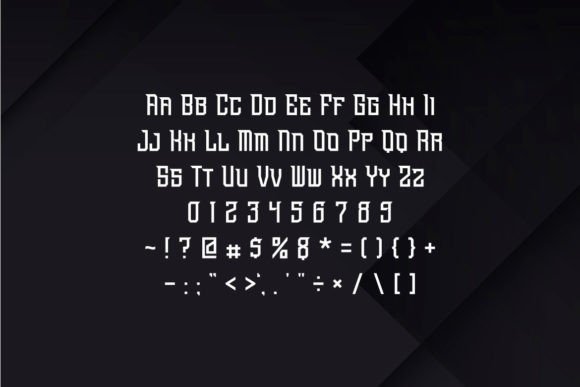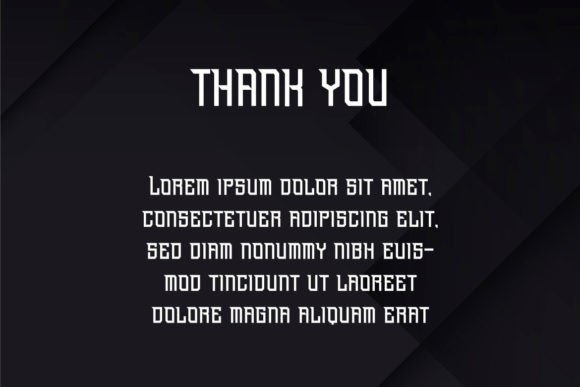
Introduction to Heroshima Font
As designers, we’ve all been there – staring at a blank canvas, searching for the perfect font to bring our creative project to life. It’s that moment of inspiration when everything falls into place, and the design starts to take shape. For many of us, that moment comes when we discover the perfect font – one that’s modern, clean, and eye-catching. Welcome to Heroshima Font, the ultimate design resource for designers looking to elevate their work.
With its sleek and sophisticated design, Heroshima Font is ideal for a wide range of applications, from Esports posters and cards to book titles and headlines. Whether you’re working on a free download project or a high-end commercial campaign, Heroshima Font is the perfect addition to your fonts library. Its transparent background and high-quality design make it a valuable asset for any designer looking to create stunning visuals.
Key Features of Heroshima Font
- Unique, high-quality design: The Heroshima Font offers a distinctive and elegant look that can elevate any creative project.
- Transparent background: The font’s transparent background allows for seamless integration with various design elements and backgrounds.
- High-resolution design: The font is designed with high resolution, ensuring crisp and clear text display even at larger sizes.
- Perfect for creative projects: The Heroshima Font is ideal for various design projects, including logos, typography, and graphics, due to its unique and stylish design.
- High-quality resolution: The font is available in a high-quality resolution of 300 DPI, making it suitable for print and digital designs.
Honest Review: Heroshima Font
One of the standout features of the Heroshima Font is its unique style, which can add a touch of elegance to any design. The font comes with a transparent background, making it easy to use in various design scenarios.
Here are some of the things that work well for the Heroshima Font:
- Unique style that can add a touch of elegance to designs
- High quality font that looks great on various devices
- Transparent background for easy use in design projects
- May not be suitable for designs that require a more modern or minimalist look
- Limited font weights and styles available
- May require some tweaking to get the desired look
Overall, I think the Heroshima Font is a great addition to any designer’s toolkit. While it may have some limitations, its unique style and high quality make it a valuable resource for creative projects. ✨
Tips for Getting the Most Out of Heroshima Font
When using the Heroshima Font, consider the following tips:
- Experiment with different font sizes and colors to create visually appealing designs.
- Combine the font with other design elements to create a cohesive look.
- Use the font’s transparent background to create a sense of depth and dimension.
The Heroshima Font is ideal for a variety of creative projects, including:
- Graphic design and branding
- Digital marketing and advertising
- Print design and publishing